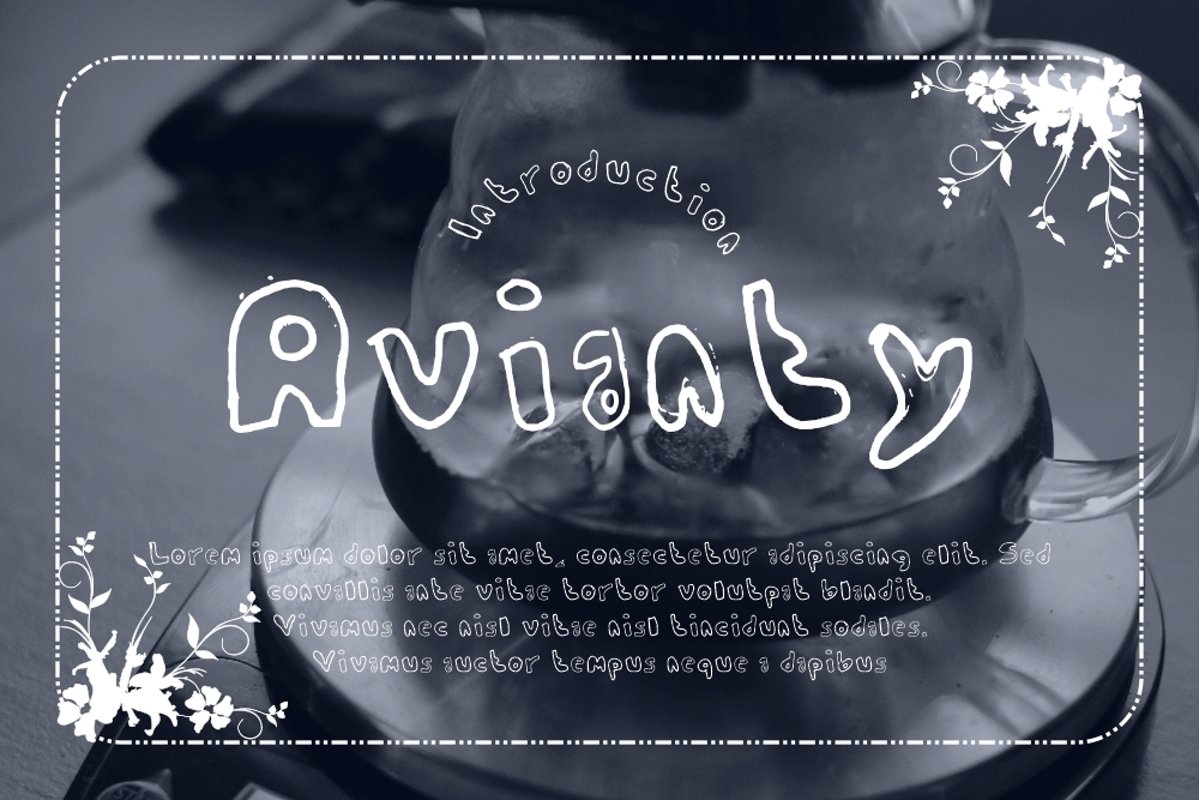
Avianty
Avianty-Regular
Avianty Typeface is a vintage display type. It suitable for any vintage type needs and more Happy creating.Very suitable for you who do exploration